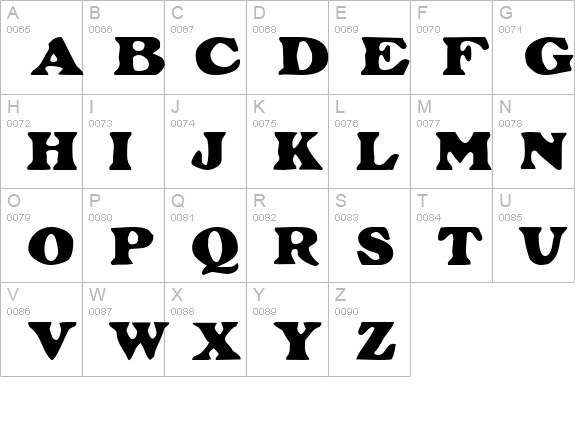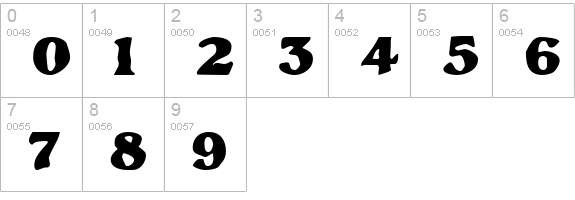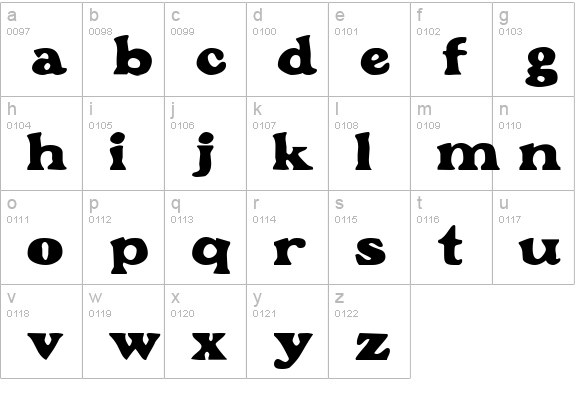
Grant font is a beautifully crafted typeface that exudes sophistication and elegance. With its clean lines and timeless appeal, Grant font is perfect for a wide range of design projects, from branding to editorial design. This versatile font is sure to make a statement and elevate any project it is used in. The best part about Grant font is that it is completely free to download at FontsMarket.com. Whether you're a designer looking to add a touch of class to your work or a content creator in need of a stylish font for your projects, Grant font is the perfect choice. Don't miss out on this amazing opportunity to enhance your designs with this stunning typeface. Download Grant font today and take your work to the next level!